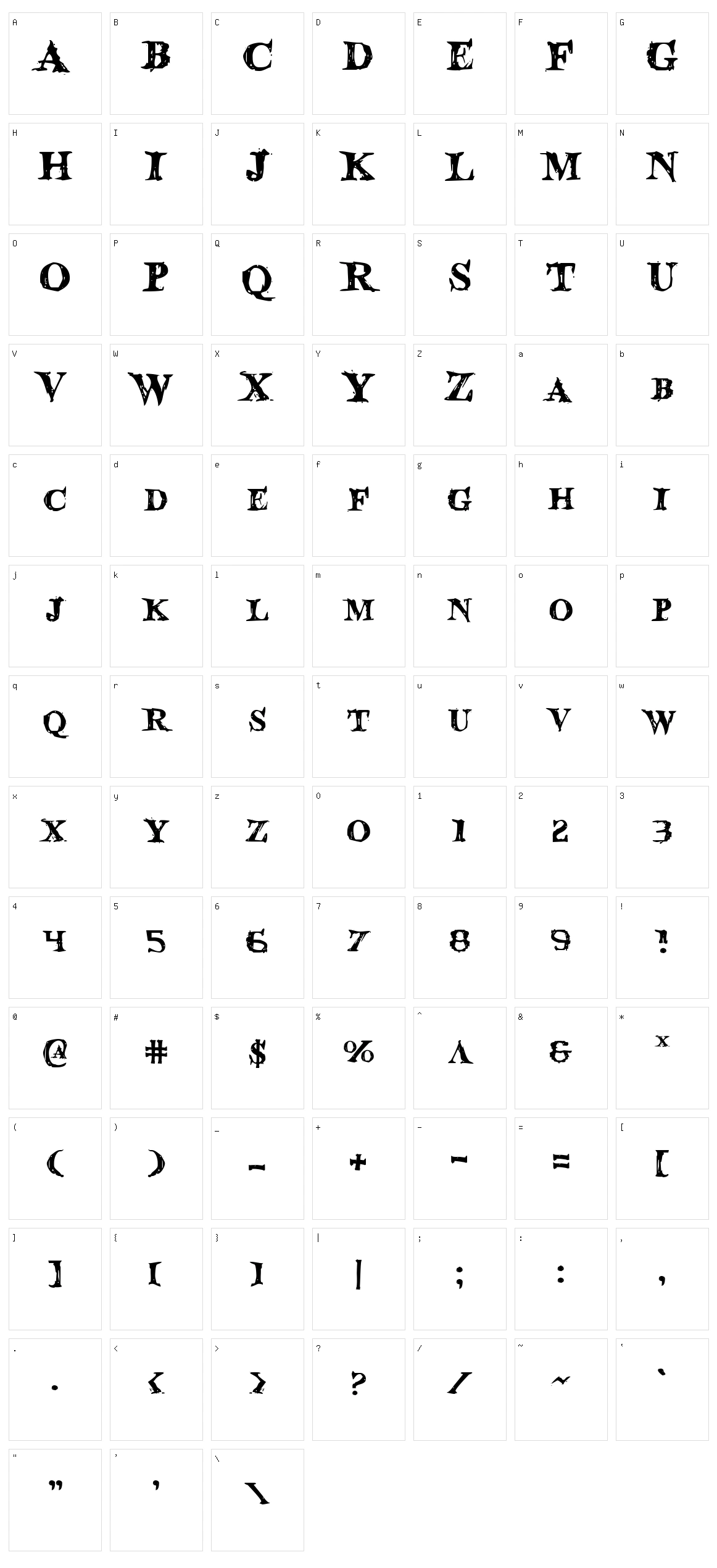
The free font Blood Crow is carefully designed by Iconian Fonts, showcasing a thoughtful balance of creativity and usability and falls under the Horror font style. When you download the ZIP file, it contains only 1212.35 KB of font files, making it lightweight and quick to download. Please review the license details below to understand permitted usage and distribution rights. If license information is not available, we recommend using this font for personal projects only or contacting the author directly for commercial usage permissions.
This font comes with the following 11 versions: Regular, Italic, Condensed, Condensed Italic, Expanded, Expanded Italic, Shadow, Shadow Italic, Shadow Condensed, Shadow Condensed Italic and Leftalic.